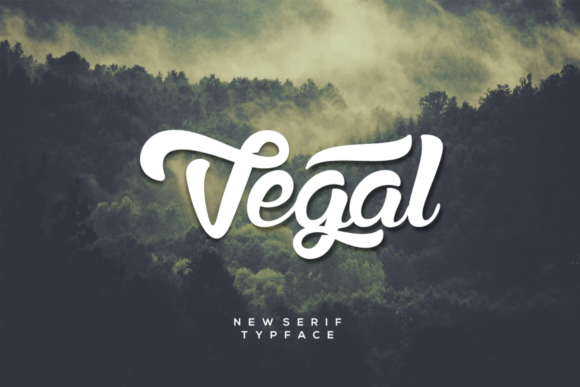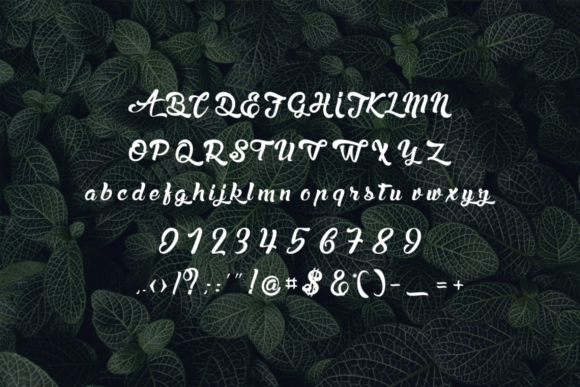
Dengal Font
About Dengal Font
Dengal is a bold and authentic script font. It is suitable for any branding project like logo, t-shirt printing, esport, and many more. Dengal looks outstanding in a wide range of contexts.